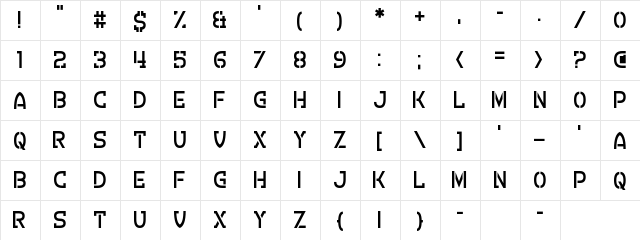
Crevice Stencil Regular
Design Context for Crevice Stencil Typeface
Crevice Stencil has the rough pragmatism of spray-painted stencil signage, adding a raw, street-level authenticity to designs.
Ideal for industrial branding, streetwear, military-adjacent aesthetics, and urban signage projects.
Pro Tip: Pair Crevice Stencil with raw, utilitarian design elements — exposed concrete textures, flat colour, and minimal ornamentation suit it well.